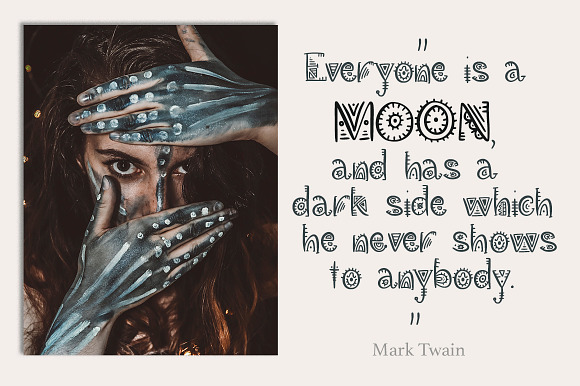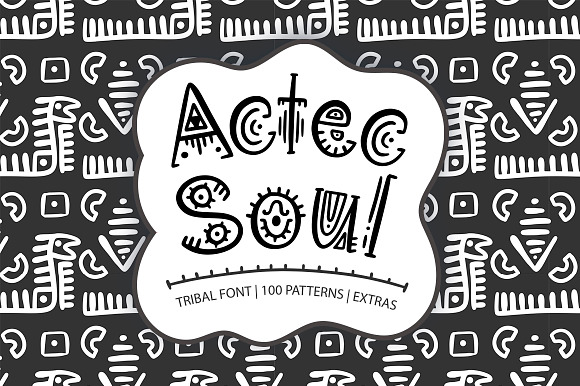
Aztec Soul. Font and 100+ graphics.
Aztec Soul. Font and 100+ graphics. is perfect for Mexican restaurant branding, cultural heritage museums, ancient civilization exhibitions, spiritual wellness centers, traditional craft materials, archaeological publication layouts, indigenous art galleries, ceremonial event invitations, tribal-inspired fashion brands, and authentic cultural celebration graphics.
What makes Aztec Soul. Font and 100+ graphics. so exciting is its extraordinary ability to channel the mystical power and ancient wisdom of Aztec civilization through letterforms and graphics that seem to pulse with the spiritual energy and cultural depth of this magnificent pre-Columbian empire. This sacred typeface and graphic collection captures the essence of Aztec spirituality and artistic mastery with characters and symbols that radiate ancestral wisdom, ceremonial power, and timeless cultural significance. The font and graphics' authentic design elements perfectly balance historical accuracy with contemporary usability, creating an indispensable cultural toolkit that communicates spiritual depth, cultural respect, and artistic authenticity, making it essential for projects honoring indigenous heritage and ancient wisdom traditions.
Aztec Soul. Font and 100+ graphics. comes in multiple font families including Regular, Bold, Light, Ceremonial, Sacred, Condensed, Extended, and Spiritual variations. Each family member maintains the core cultural characteristics while offering different spiritual intensity levels and stylistic approaches, complemented by over 100 authentic graphics including sacred symbols, ceremonial elements, and traditional patterns.
The Aztec Soul. Font and 100+ graphics. Free Download provides designers and cultural organizations with an exceptional comprehensive resource for creating respectful materials that honor Aztec heritage while educating modern audiences about this remarkable civilization's artistic and spiritual contributions. This remarkable collection distinguishes itself through its unique ability to communicate themes of ancient wisdom, spiritual connection, and cultural reverence. Whether you're developing cultural museum exhibitions, creating educational materials about pre-Columbian civilizations, or designing respectful cultural celebration events, this font and graphics collection ensures your message honors the profound spiritual and artistic legacy of Aztec culture.
The sacred authenticity in Aztec Soul. Font and 100+ graphics. makes it particularly effective for cultural institutions and educational organizations where conveying respect for indigenous heritage and ancient wisdom traditions is crucial for meaningful cultural education and preservation. The comprehensive collection works exceptionally well across all educational and cultural applications, from museum displays to cultural center materials, maintaining consistent cultural integrity and educational value.
Cultural heritage professionals recognize how Aztec Soul. Font and 100+ graphics. transforms ordinary educational content into powerful connections with ancient wisdom and cultural understanding. The comprehensive collection includes authentic ceremonial symbols, sacred geometric patterns, and traditional design elements that enhance the overall spiritual and educational atmosphere of any culturally-focused project.
For creative professionals serving museums, cultural centers, and educational institutions, Aztec Soul. Font and 100+ graphics. serves as the perfect foundation for establishing memorable cultural experiences that capture the essential qualities of ancient wisdom, spiritual depth, and cultural respect that define successful projects honoring indigenous heritage and preserving sacred traditions.